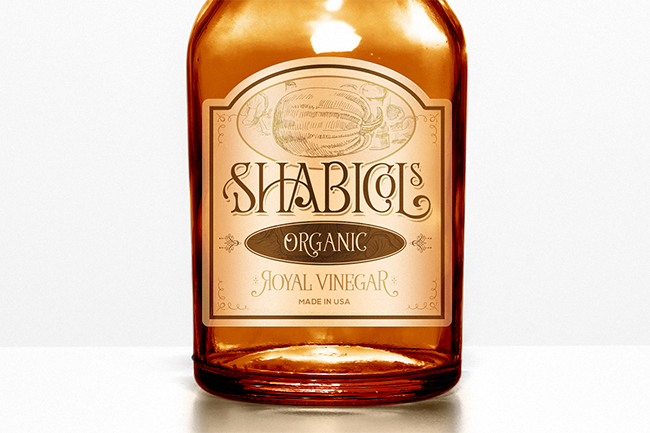
[Vintage Serif] Wallington Việt hóa
Wallington Pro is a decorative-serif font embodying vintage and elegant curves with functional structure. Style is adopted from Old English cultures with their descendants around mid-12th century and Art nouveau in 19th century, it was inspired by natural forms and structures and the curved lines. Crafted with love and easy-to-read letter design.
Wallington Pro consists of 721 glyphs including 268 unique ligatures, 30+ catchwords and 10 stylistic sets. All glyphs are divided into several OpenType features such as Ligatures, Contextual alternates, Old Style Numeric and some astonishing special characters that allows you to mix and match pairs of letters to fit your design. This variety encourages unusual and extroverted creation in lettering design.